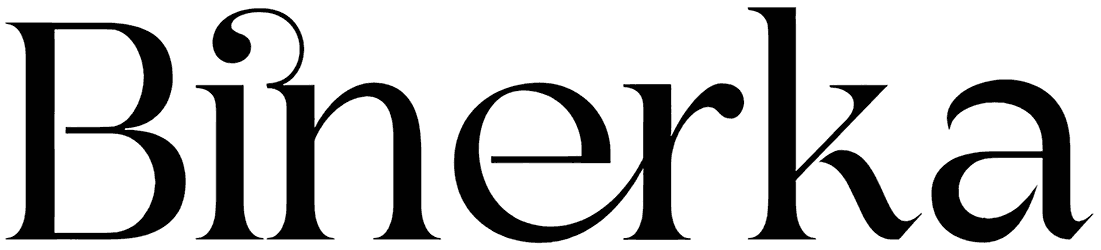
Binerka Font
The Binerka is a well-designed serif font that sends a friendly vibe to the viewers. This font’s letters have a modern style that makes them applicable for various fancy cases such as magazines, book covers, and postcards.
The Binerka font catches your eye at first sight, and its handsome personality keeps the subject in the audience’s mind. Thus, try this artistic font and give your audience a spectacular experience.